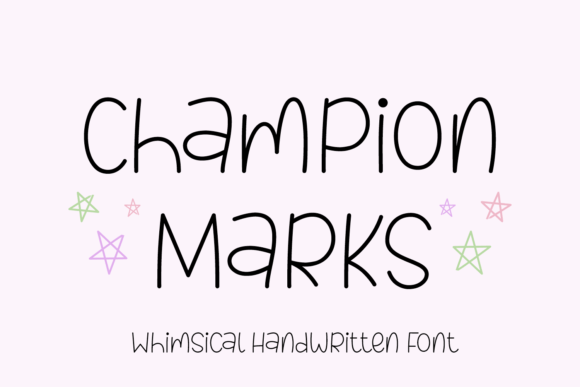
Champion Marks Font: Unleashing the Spirit of Unconventional Design
In the realm of typography, fonts play a pivotal role in conveying the essence and personality of a brand, product, or creative project. Among the myriad of fonts available, one that stands out for its unique charm and character is the Champion Marks Font. This quirky handwritten font is not just a typeface; it’s an expression of charisma and individuality, designed to make your titles, logos, and creative projects pop with a lively, handcrafted appeal.
The Essence of Champion Marks Font
Champion Marks is more than just a font; it’s a statement. With its playful strokes and distinctive character shapes, it embodies the spirit of unconventional and spirited design. This font is perfect for those who wish to stray from the conventional path and inject their projects with a dose of personality and flair. Whether you’re a designer looking for a unique typeface for your client’s logo, a marketer aiming to create a standout brand identity, or a creative soul working on personal projects, Champion Marks Font offers a refreshing alternative to traditional typography.
Key Features of Champion Marks Font
- Playful Strokes: One of the defining features of Champion Marks Font is its playful strokes. Each letter is crafted with a sense of movement and energy, giving your text a dynamic and lively feel.
- Unique Character Shapes: The font boasts unique character shapes that set it apart from more conventional typefaces. These distinctive shapes contribute to its charismatic and individualistic appeal.
- Handcrafted Charm: The handcrafted nature of Champion Marks Font is evident in its subtle imperfections and the organic feel of its letters. This makes it perfect for projects where a personal touch is desired.
- Versatility: Despite its unique characteristics, Champion Marks Font is surprisingly versatile. It can be used for a wide range of applications, from titles and logos to creative projects and marketing materials.
Applications of Champion Marks Font
The versatility of Champion Marks Font makes it suitable for various applications. Here are some of the ways you can use this distinctive font:
- Logos and Branding: For businesses looking to create a memorable brand identity, Champion Marks Font can be a great choice. Its unique charm can help a brand stand out in a crowded market.
- Titles and Headings: Add a touch of personality to your articles, blog posts, and presentations with Champion Marks Font. It’s perfect for titles and headings where you want to grab attention.
- Creative Projects: If you’re working on creative projects such as posters, flyers, or digital art, Champion Marks Font can add a creative and playful touch.
- Marketing Materials: For marketing materials that require a bit of flair, such as brochures, banners, and social media graphics, Champion Marks Font can help make your content more engaging.
The Spirit of Unconventional Design
Champion Marks Font is a testament to the spirit of unconventional and spirited design. In a world where conformity often seems safe and easy, embracing uniqueness can be a bold statement. This font encourages designers and creatives to push boundaries and explore new possibilities in typography. It’s about creating something that stands out, not just for the sake of being different, but for expressing a genuine personality or brand essence.
Tips for Using Champion Marks Font Effectively
To make the most of Champion Marks Font, consider the following tips:
- Pair it with Simpler Fonts: For optimal readability, pair Champion Marks Font with simpler fonts for body text. This contrast will make your titles and headings pop without overwhelming the reader.
- Experiment with Colors: Don’t be afraid to experiment with different colors. The playful nature of Champion Marks Font lends itself well to vibrant and bold color schemes.
- Use it Sparingly: While Champion Marks Font is undeniably charming, it’s best used sparingly. Overuse can dilute its impact, so consider using it for key messages or highlights.
Champion Marks Font is a quirky handwritten font that exudes charisma and individuality. Its playful strokes and unique character shapes make it a standout in the world of typography. Whether used for titles, logos, or creative projects, it brings a lively, handcrafted charm that’s hard to replicate with more conventional typefaces. By embracing Champion Marks Font, you’re not just choosing a typeface; you’re making a statement about the importance of personality and individuality in design. So, if you’re looking to add a bit of unconventional spirit to your projects, Champion Marks Font is undoubtedly worth considering.